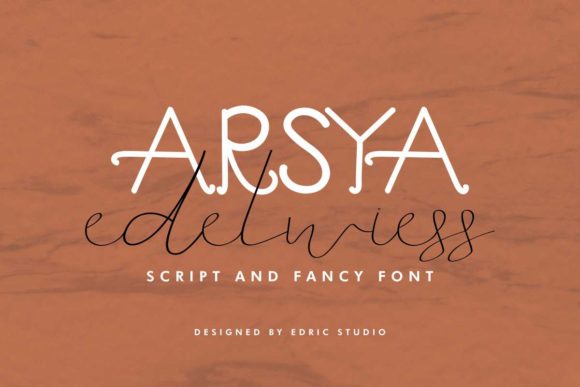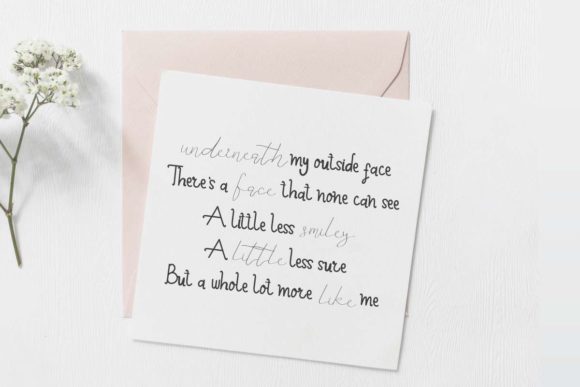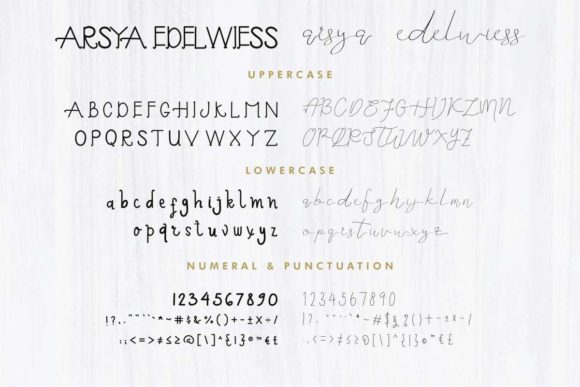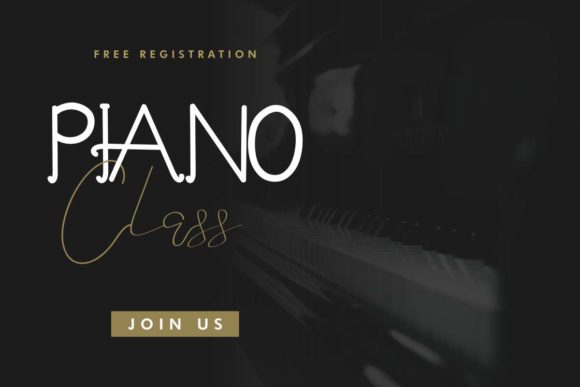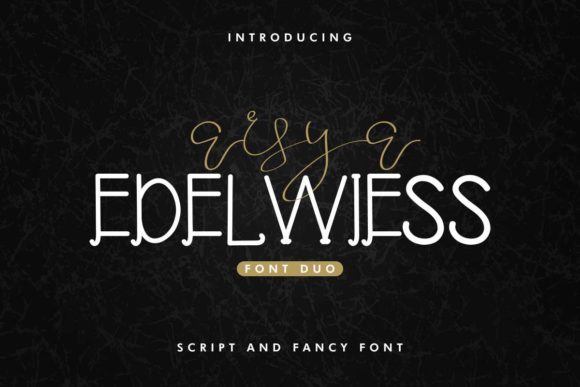
Introducing Arsya Edelwiess Duo Font: A Match Made in Heaven
Are you tired of using the same old fonts in your designs? Look no further! The Arsya Edelwiess Duo Font is here to revolutionize your typography game. This stunning duo is a perfect blend of simplicity and elegance, making it a match made in heaven. In this article, we’ll dive into the world of Arsya Edelwiess Duo Font and explore its versatility, features, and uses.
The Perfect Pairing: Sans Serif and Script
The Arsya Edelwiess Duo Font consists of two complementary fonts: a sans serif and a script font. The sans serif font is clean, modern, and minimalist, while the script font adds a touch of elegance and sophistication. When paired together, they create a unique and harmonious visual experience. The simplicity of the sans serif font perfectly complements the script’s style, making it an ideal combination for designers and crafters.
Endless Possibilities: Versatility of Arsya Edelwiess Duo Font
One of the standout features of the Arsya Edelwiess Duo Font is its versatility. This font duo can be used in a wide variety of applications, from headlines to branding, and everything in between. Whether you’re designing a logo, brochure, or website, this font combination will give your design a unique and elegant feel.
Headlines and Titles
The Arsya Edelwiess Duo Font is perfect for headlines and titles. The sans serif font is bold and attention-grabbing, while the script font adds a touch of sophistication. Use the sans serif font for headings and the script font for subheadings or titles to create a visually appealing hierarchy.
Branding and Logo Design
When it comes to branding and logo design, the Arsya Edelwiess Duo Font is an excellent choice. The font duo is elegant, sophisticated, and memorable, making it perfect for creating a lasting impression. Use the script font for your logo and the sans serif font for taglines or descriptions to create a cohesive brand identity.
Digital and Print Materials
The Arsya Edelwiess Duo Font is suitable for both digital and print materials. Use it in your website design, social media graphics, or email marketing campaigns to add a touch of elegance. For print materials, such as brochures, flyers, or business cards, this font duo will give your design a professional and polished look.
Why Choose Arsya Edelwiess Duo Font?
So, why choose the Arsya Edelwiess Duo Font? Here are a few reasons:
- Unique and Elegant: The Arsya Edelwiess Duo Font is a unique and elegant combination that will give your design a distinctive look.
- Versatile: This font duo can be used in a wide variety of applications, from headlines to branding.
- Easy to Read: The sans serif font is clean and easy to read, making it perfect for body text.
- High-Quality: The Arsya Edelwiess Duo Font is a high-quality font duo that is designed to deliver exceptional results.
In conclusion, the Arsya Edelwiess Duo Font is a match made in heaven. The simplicity of the sans serif font perfectly complements the script’s style, making it a unique and elegant combination. With its versatility, features, and uses, this font duo is perfect for designers and crafters looking to elevate their typography game. Whether you’re designing a logo, brochure, or website, the Arsya Edelwiess Duo Font is an excellent choice. So, why wait? Try it out today and see the difference for yourself!